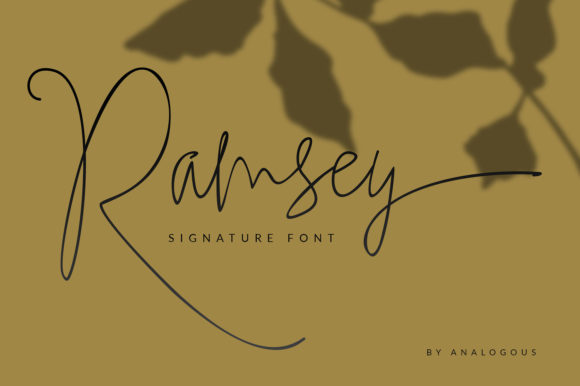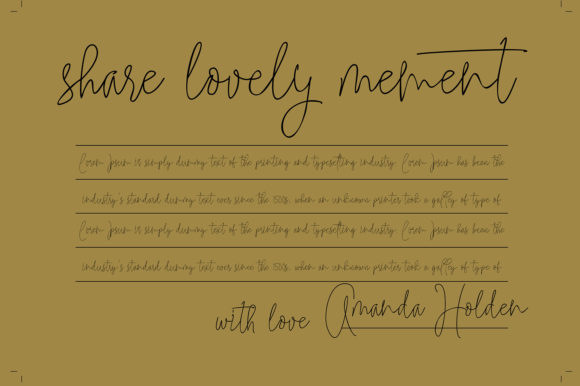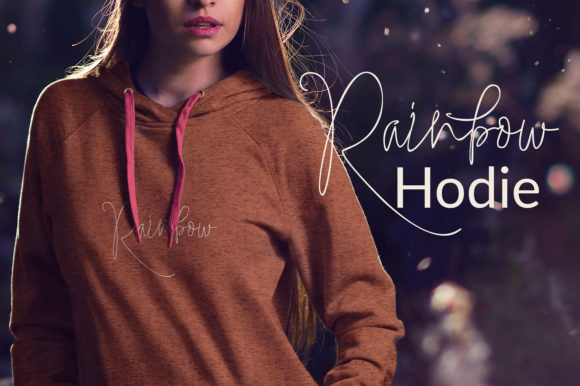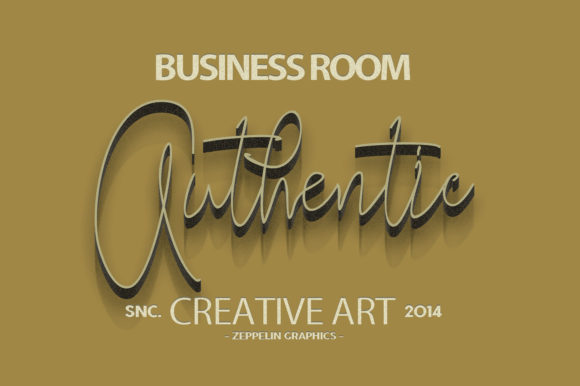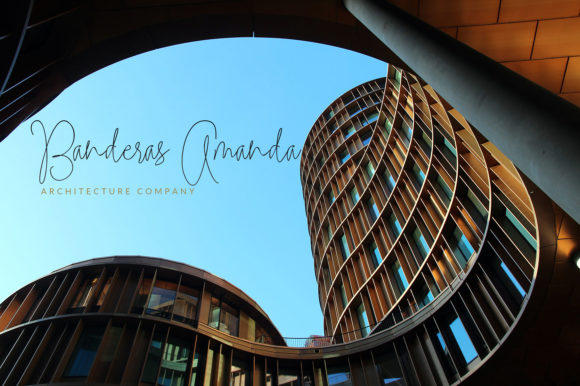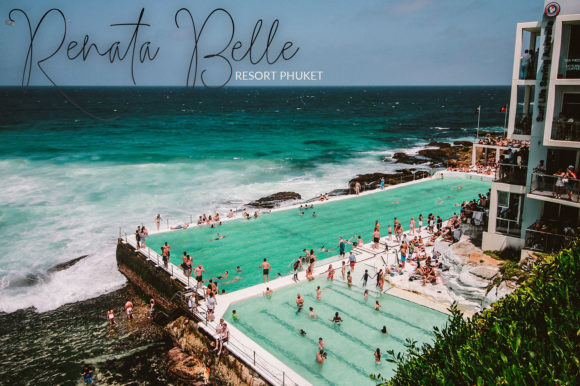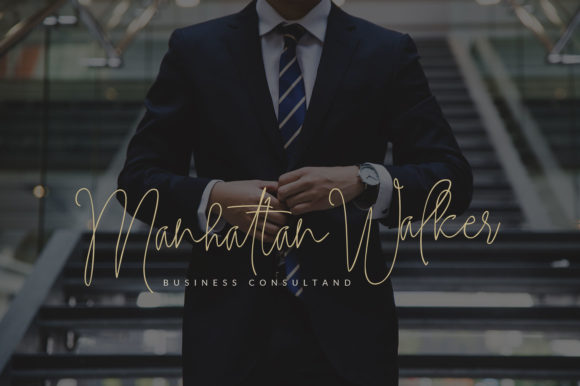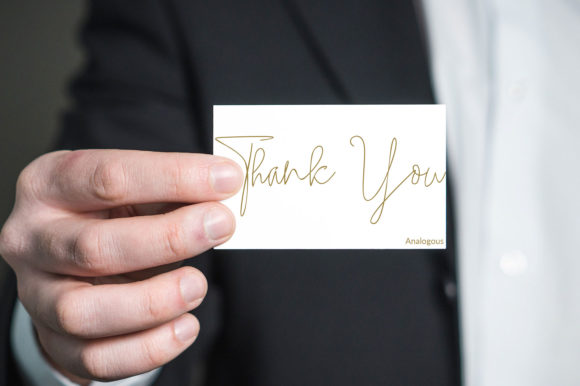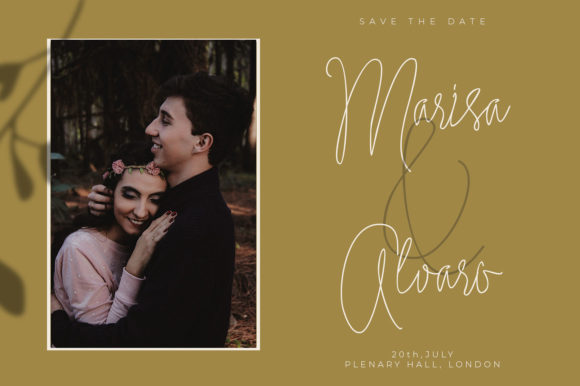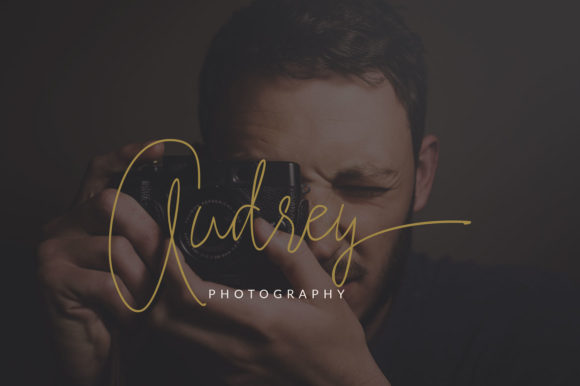
Ramsey Font
About Ramsey Font
Ramsey is a light and charming handwritten font with a cool vibe. Use it to add a contemporary touch to any design idea!